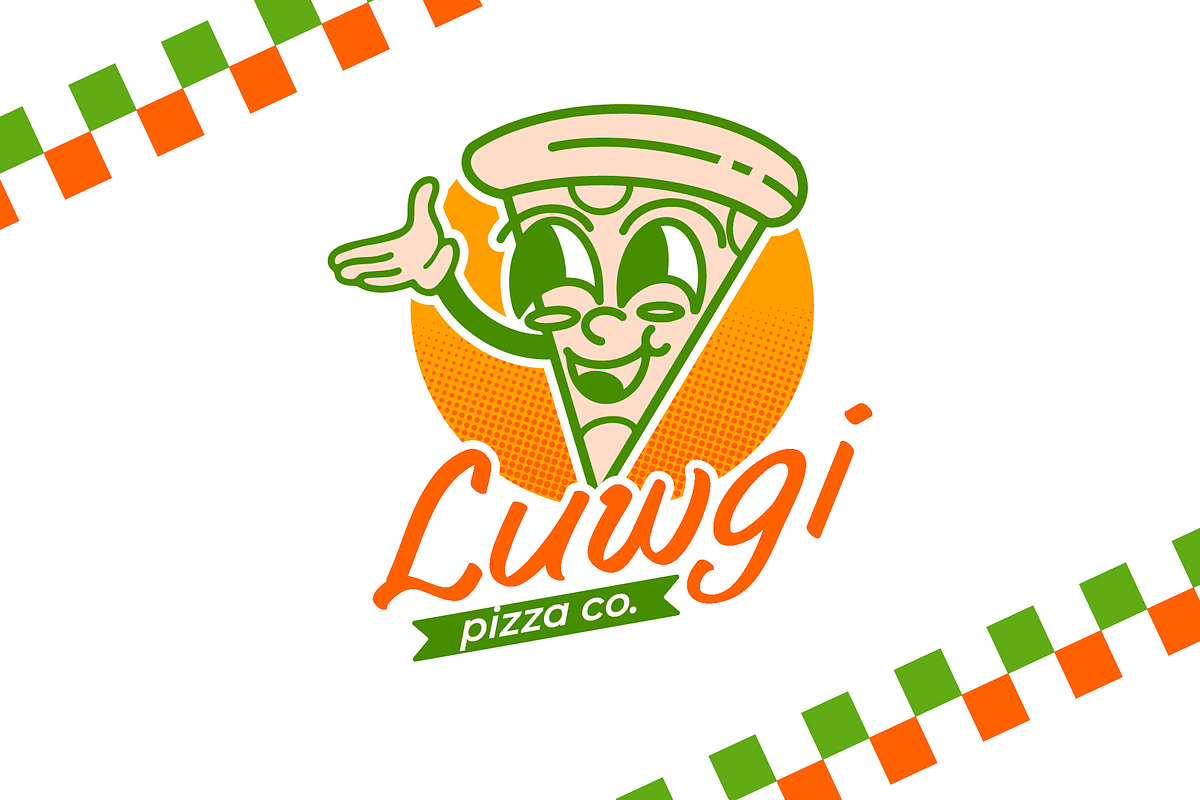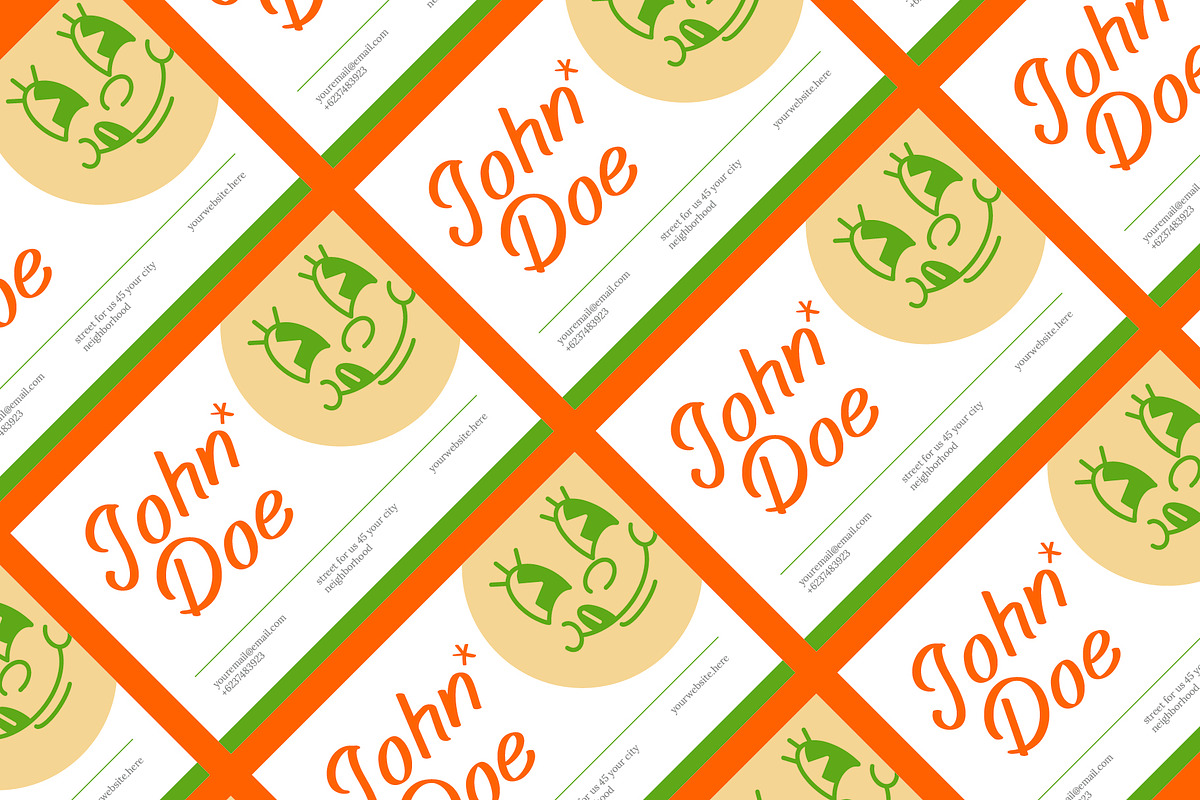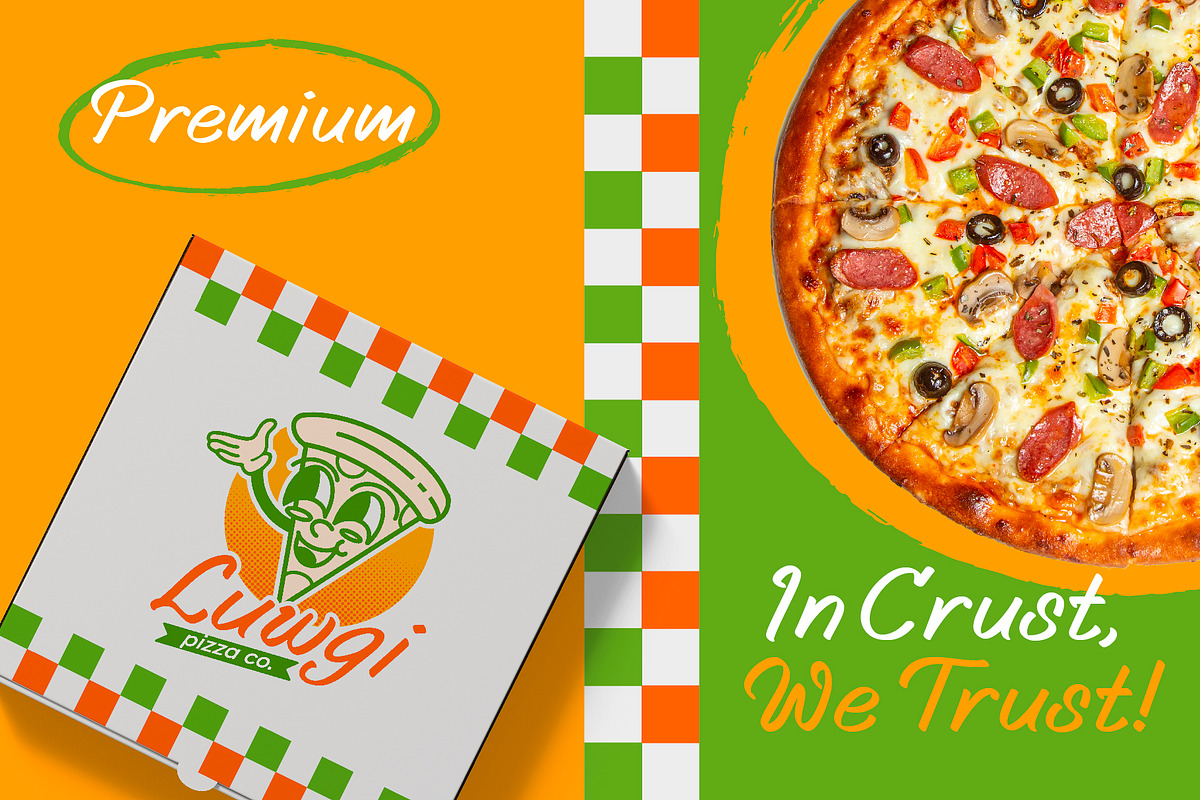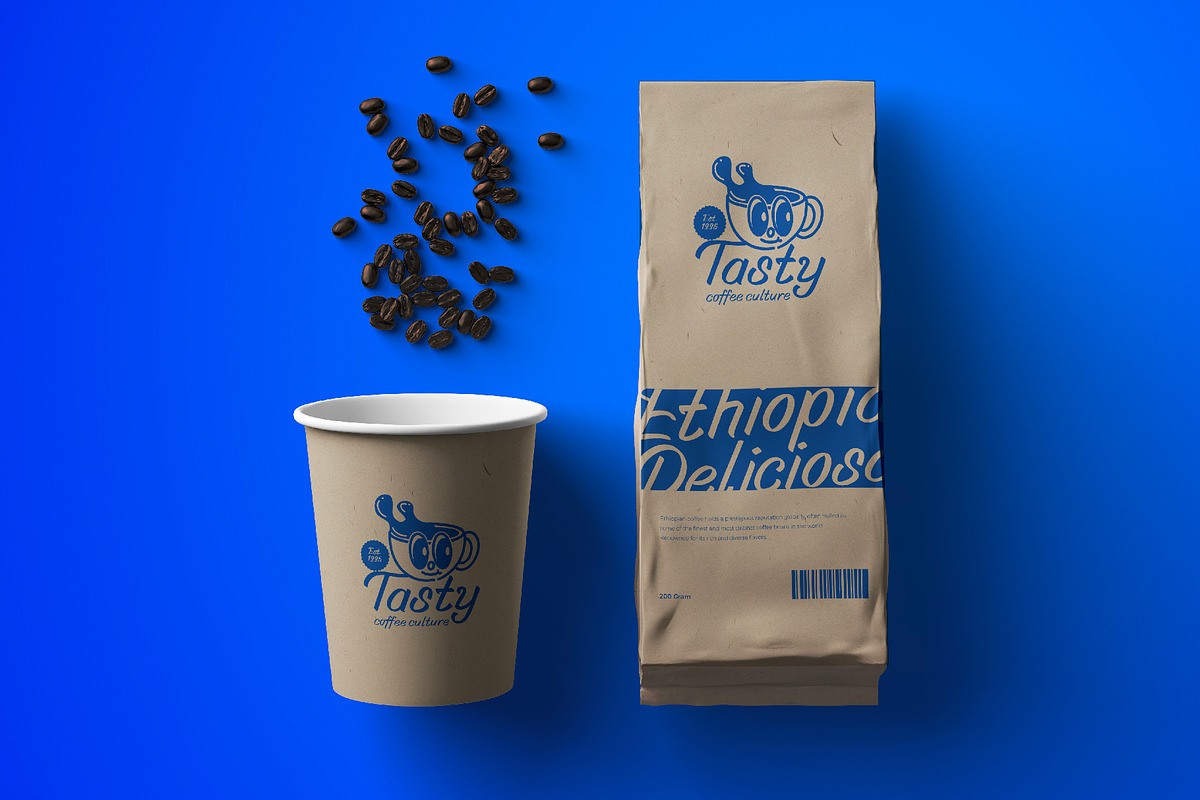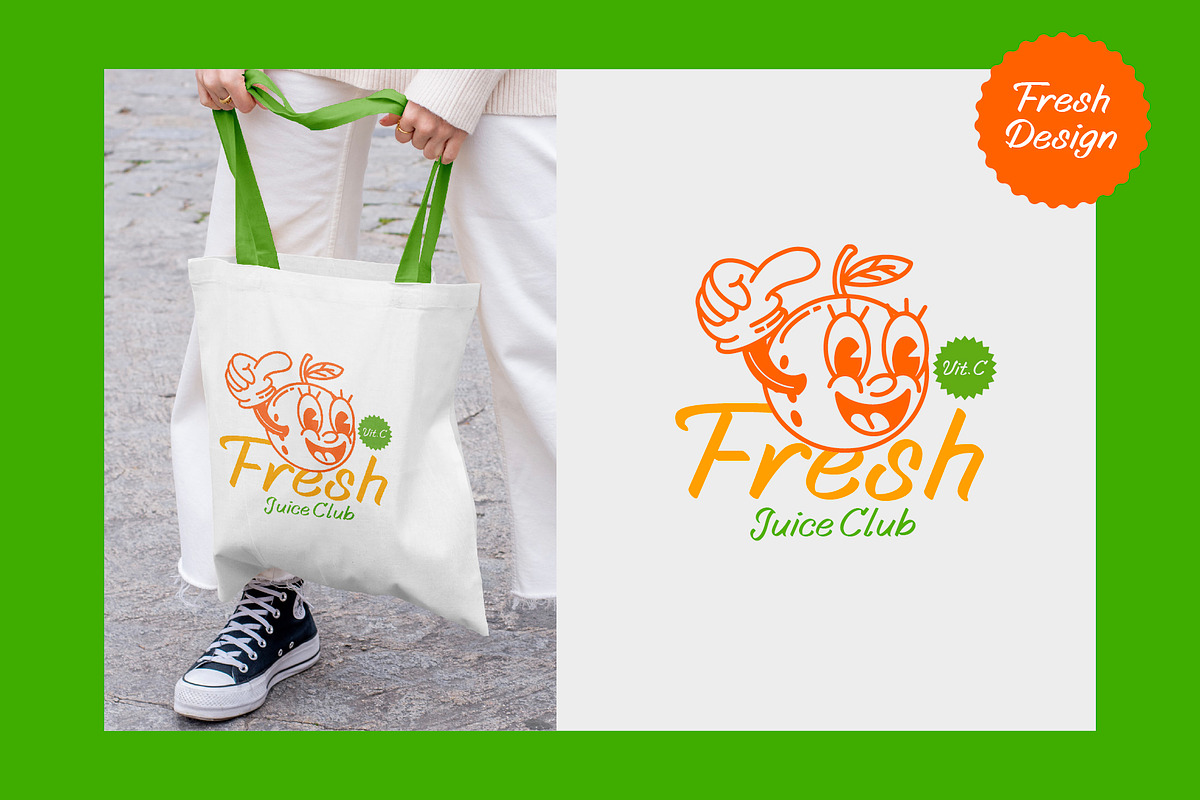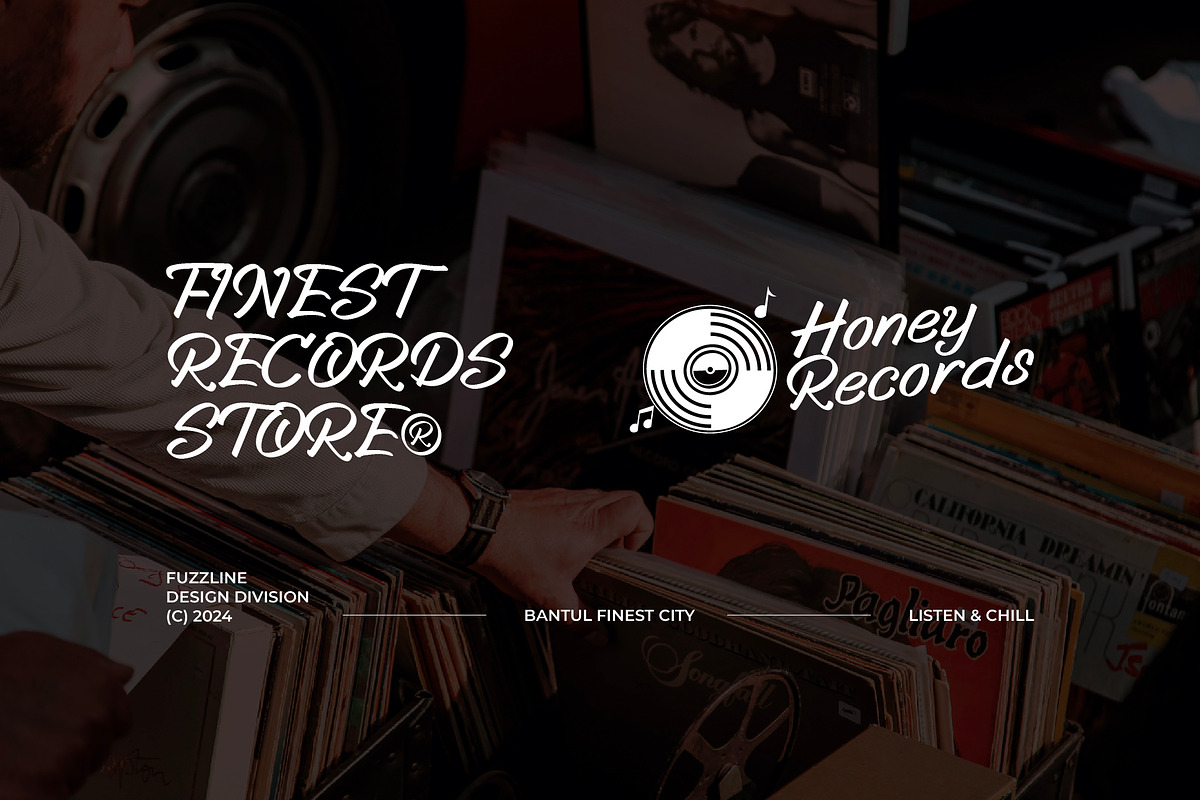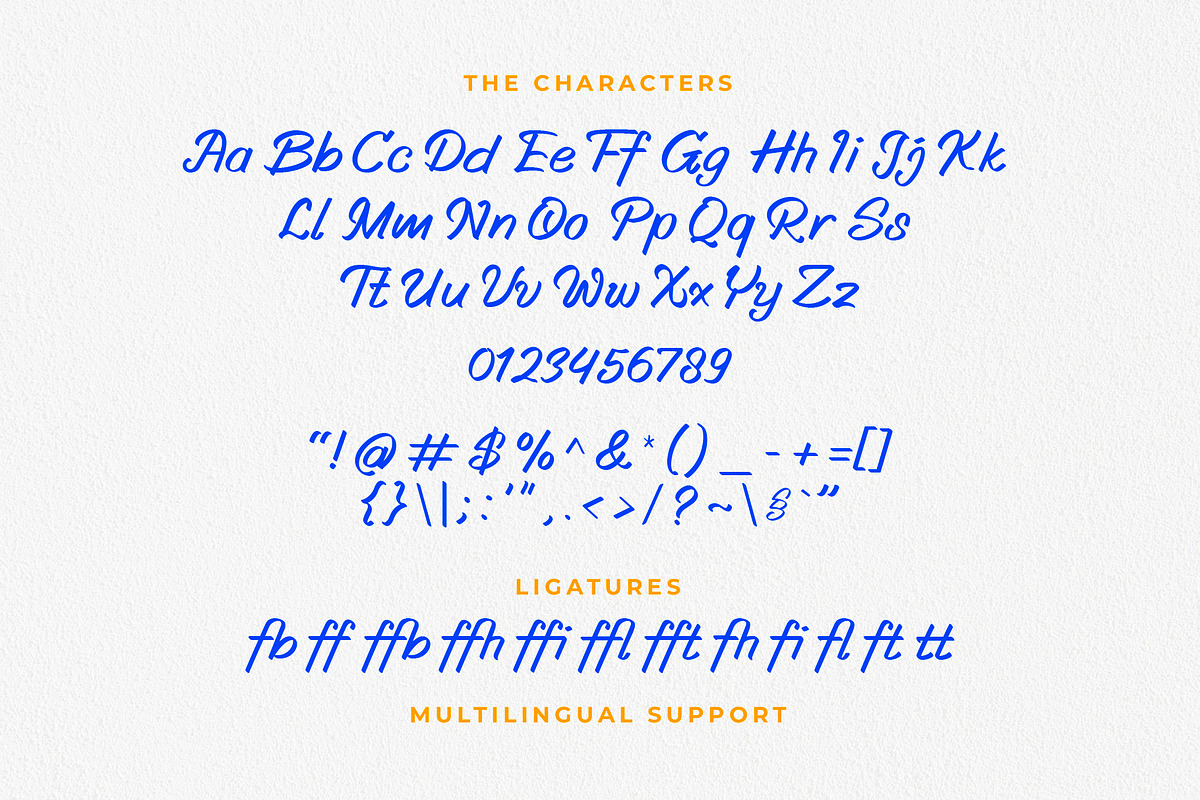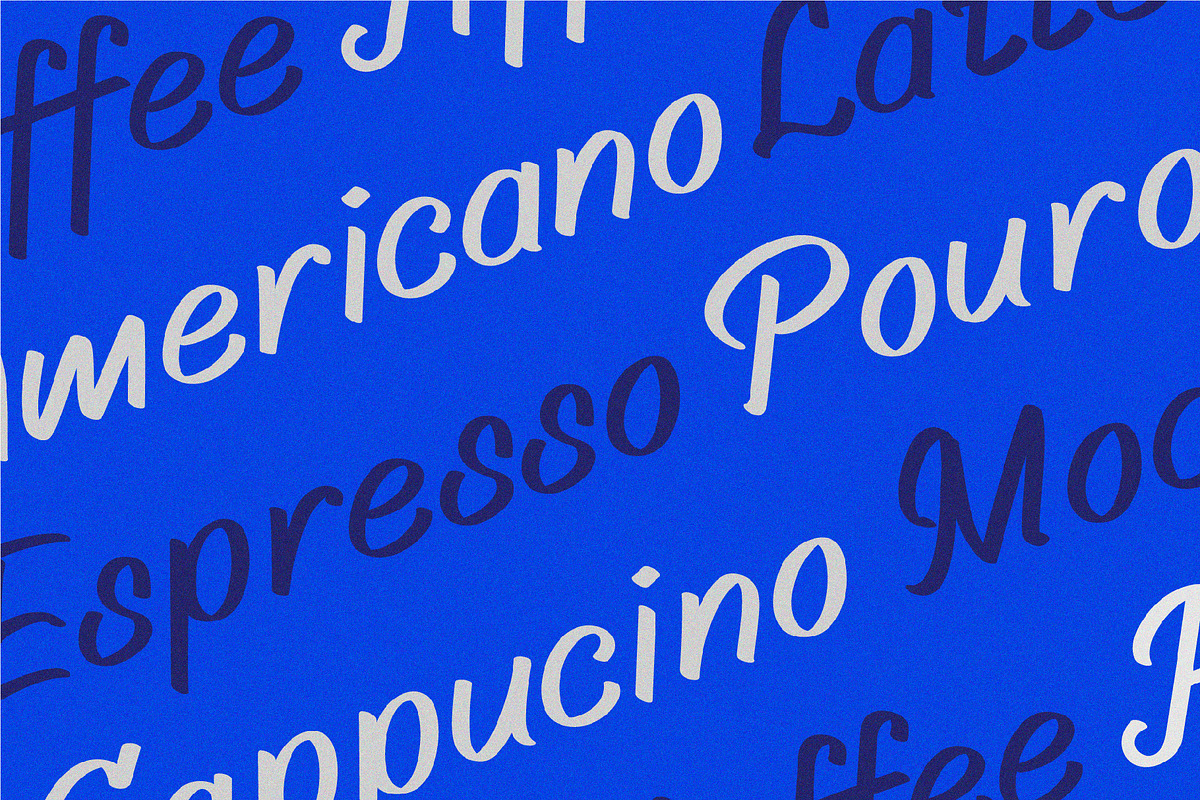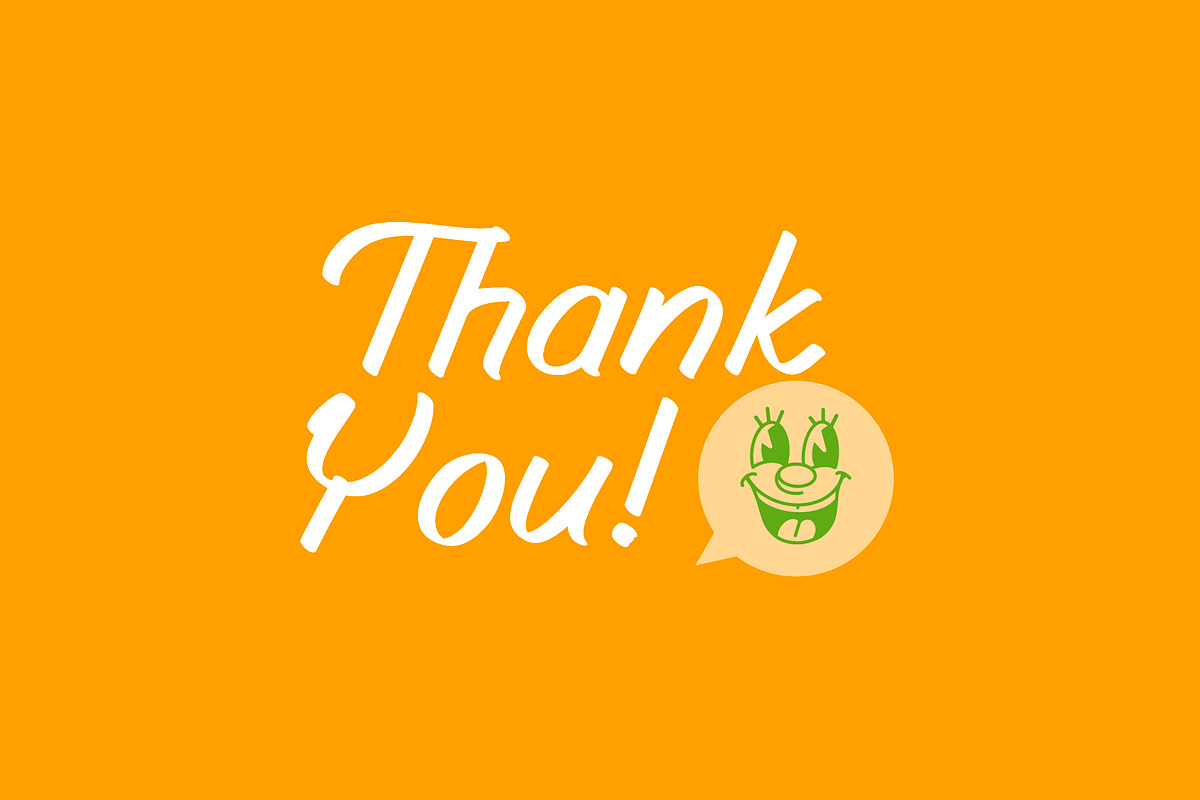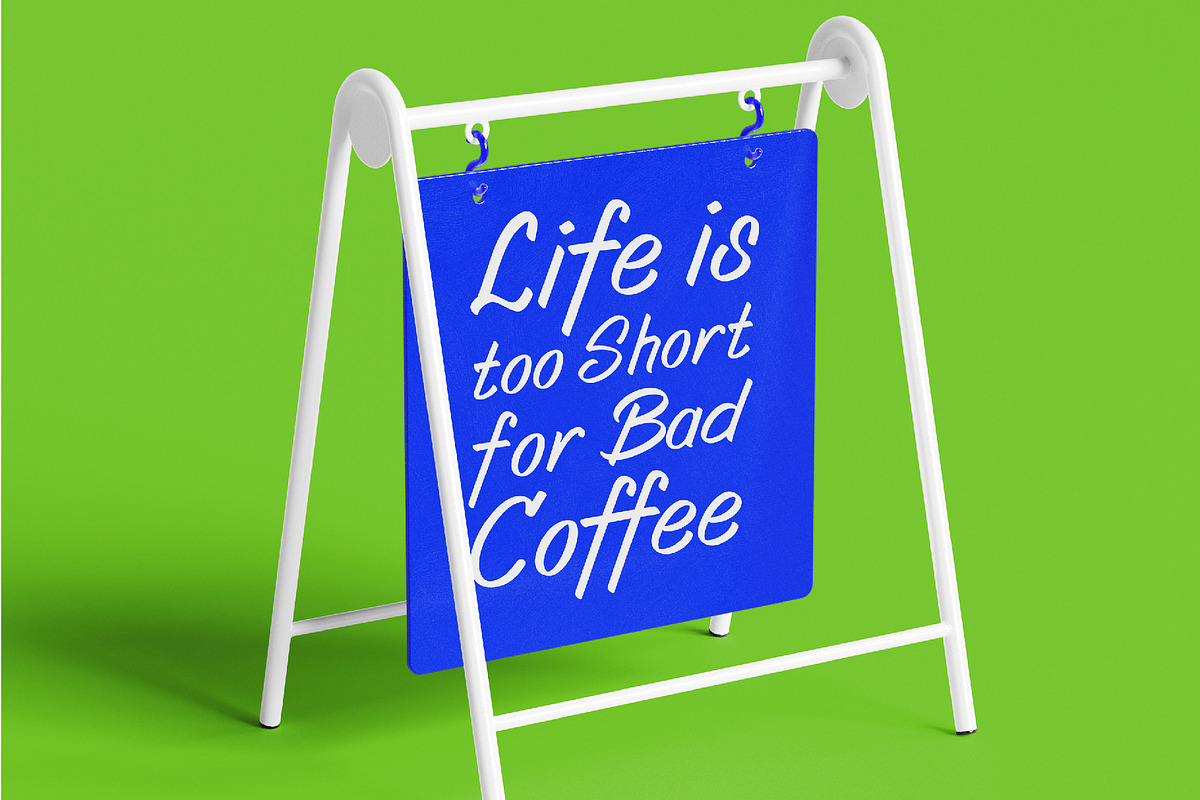
Kola Latte - Tasty Handwritten Font
Introducing
Kola Latte – a captivating handwritten font. Its inspiration stems from the organic, flowing lines of hand-drawn elements, making it an ideal choice for a diverse range of designs. Whether you're working on a logo with a retro cartoon vibe or creating a playful food menu typography, Kola Latte lends a unique touch with its rounded and versatile aesthetic.
This font boasts 485 meticulously designed glyphs, including both uppercase and lowercase letters, numerals, and a comprehensive set of punctuation marks. Its adaptability extends to various languages, ensuring seamless integration into your global design projects.